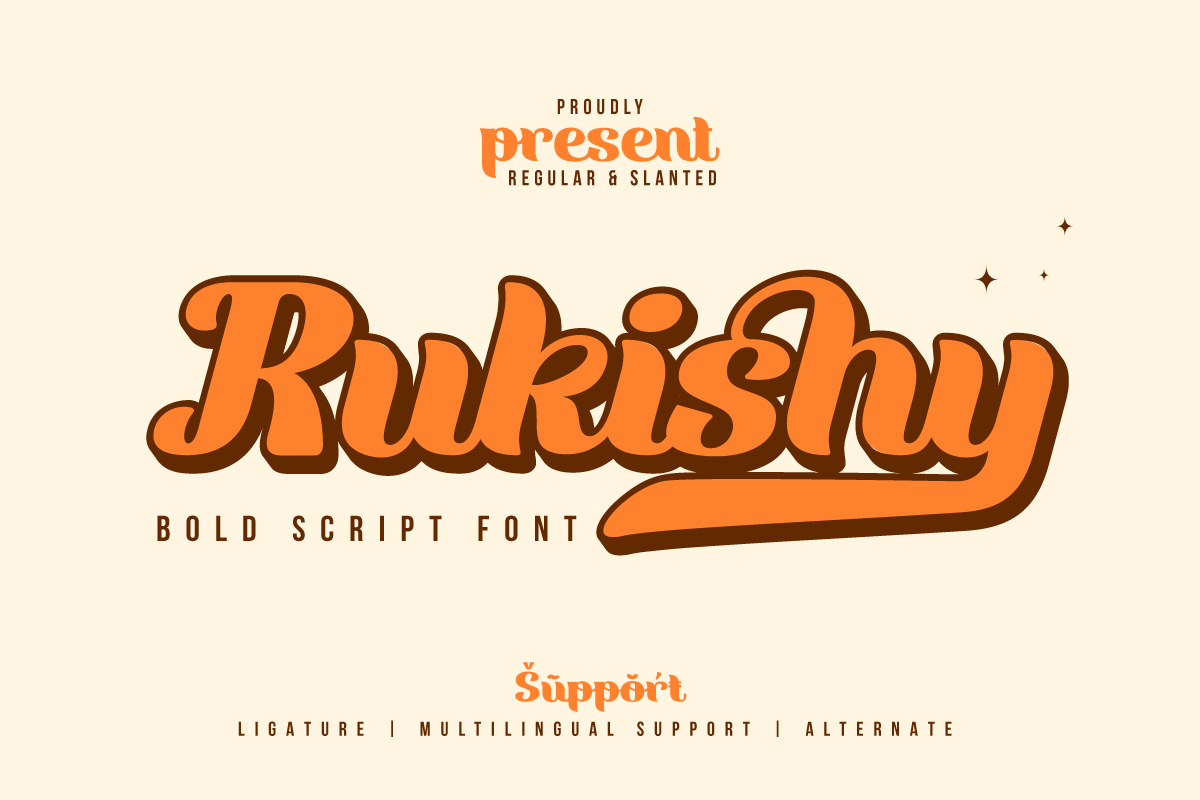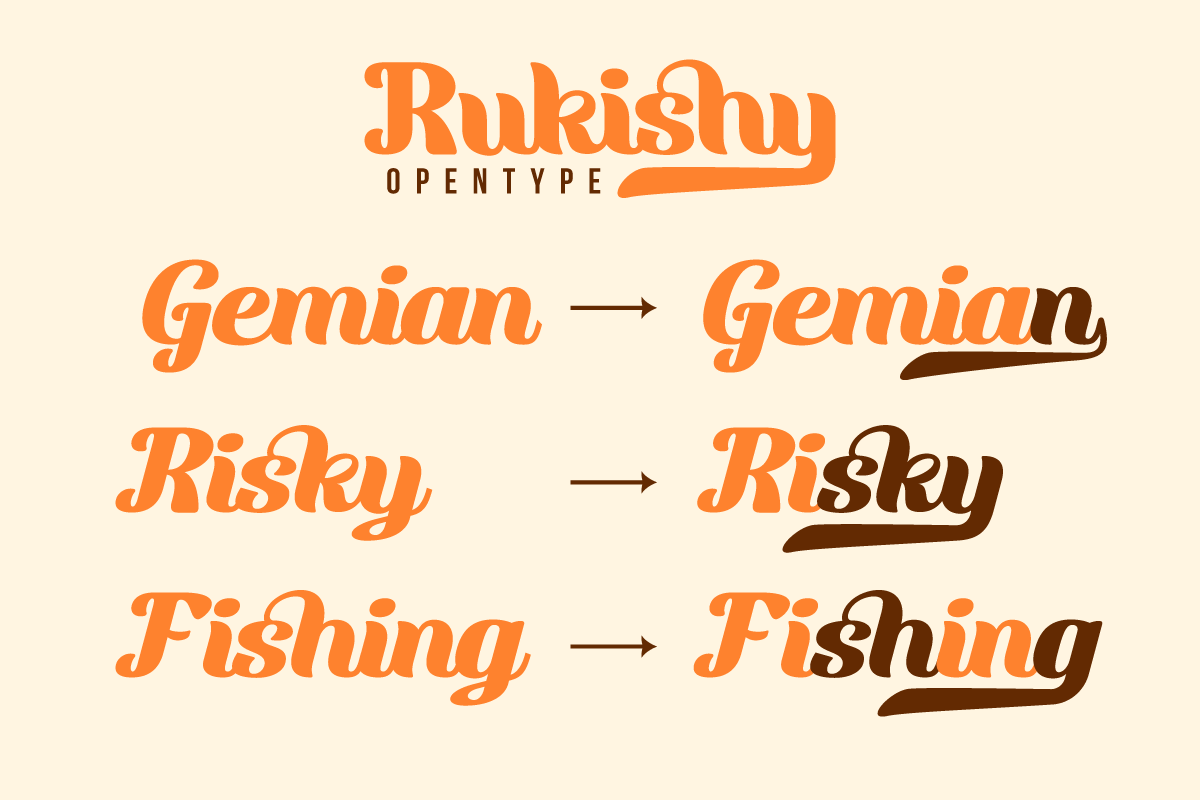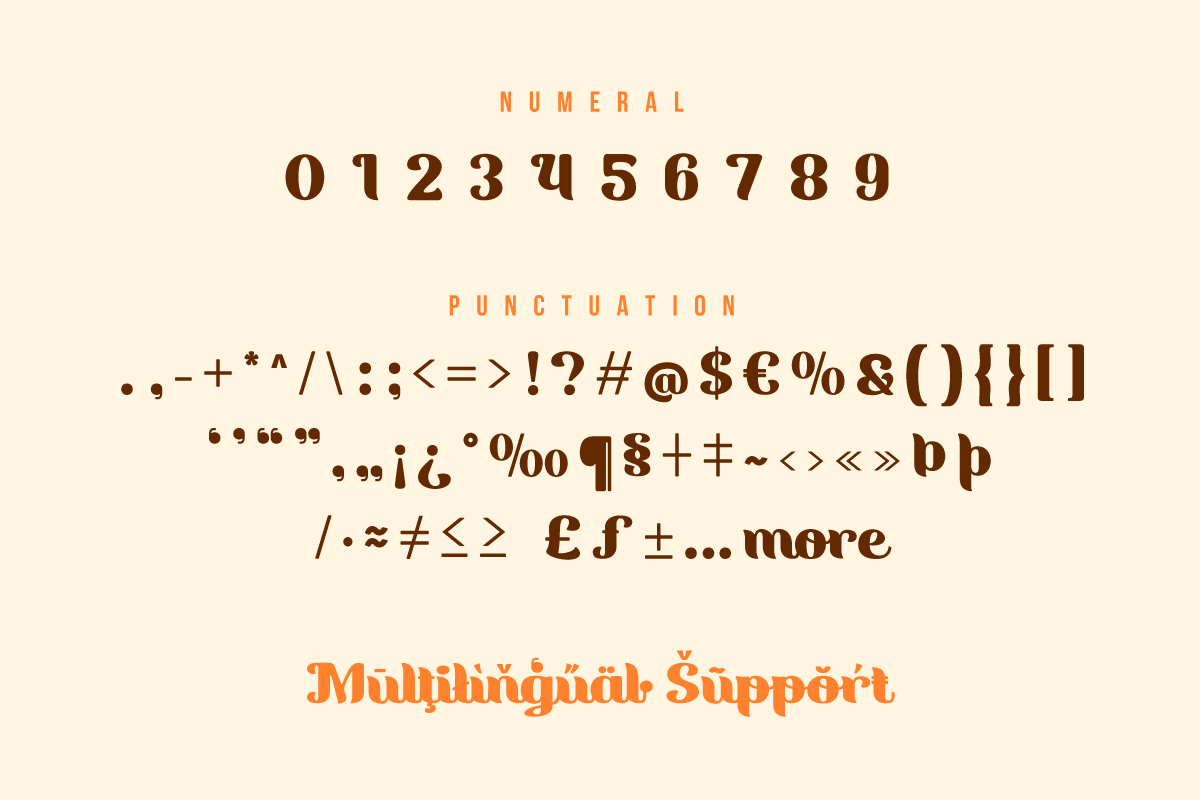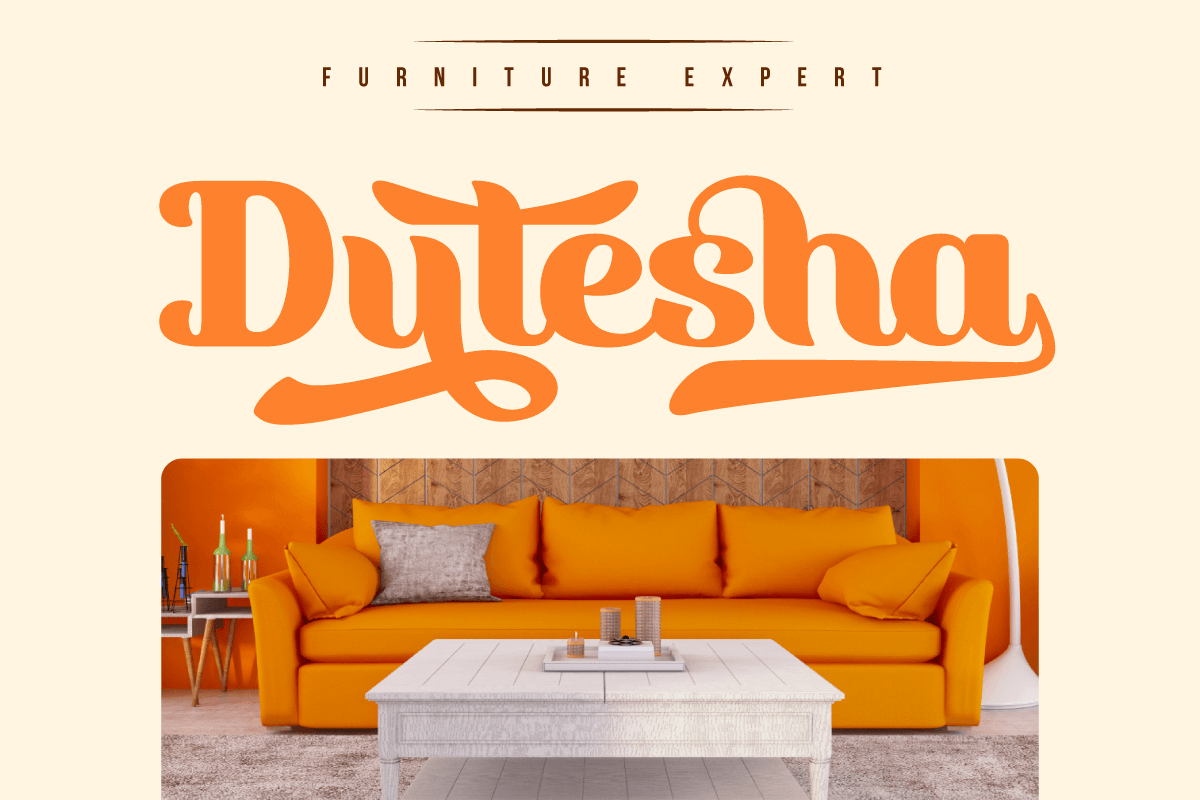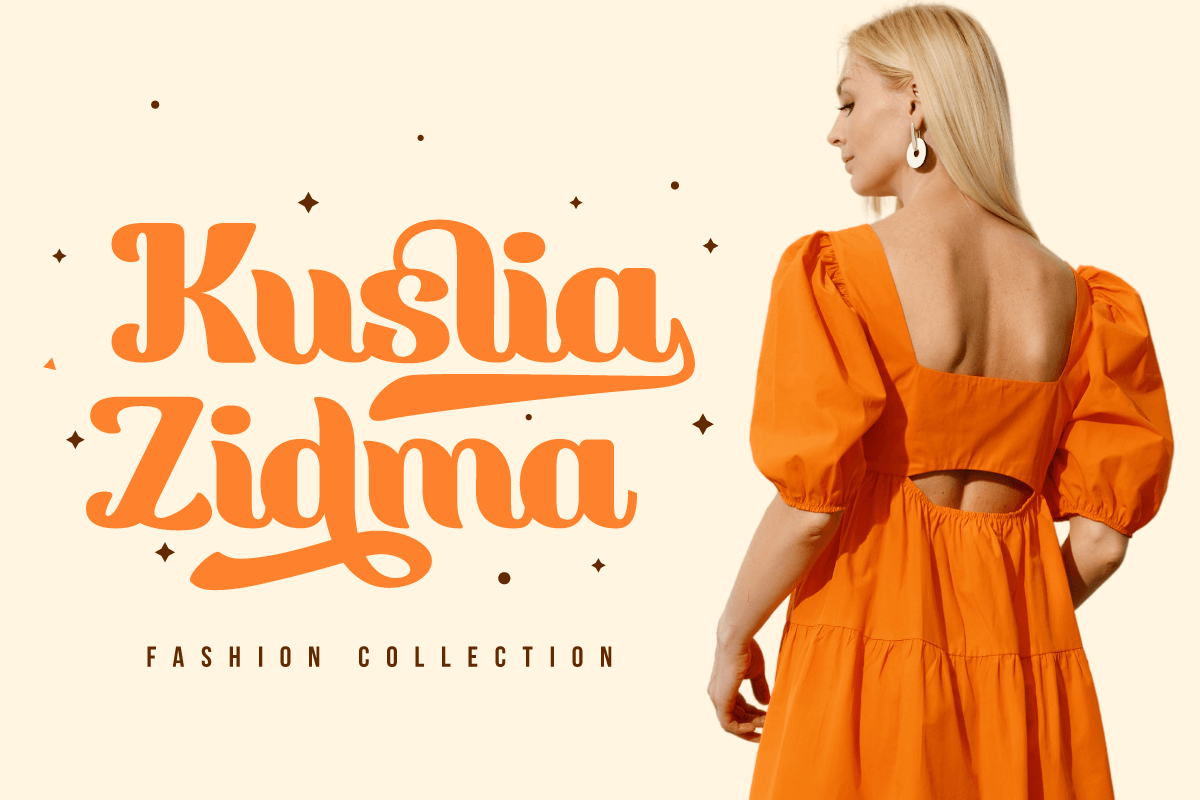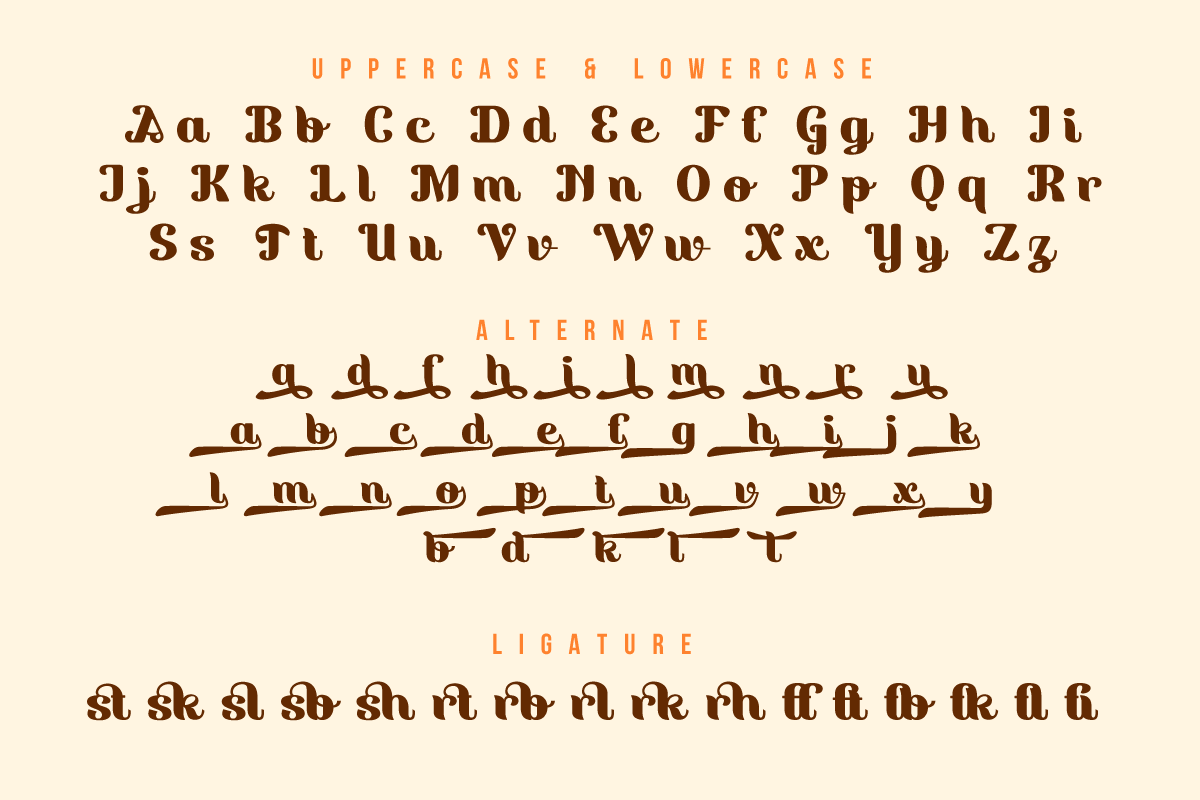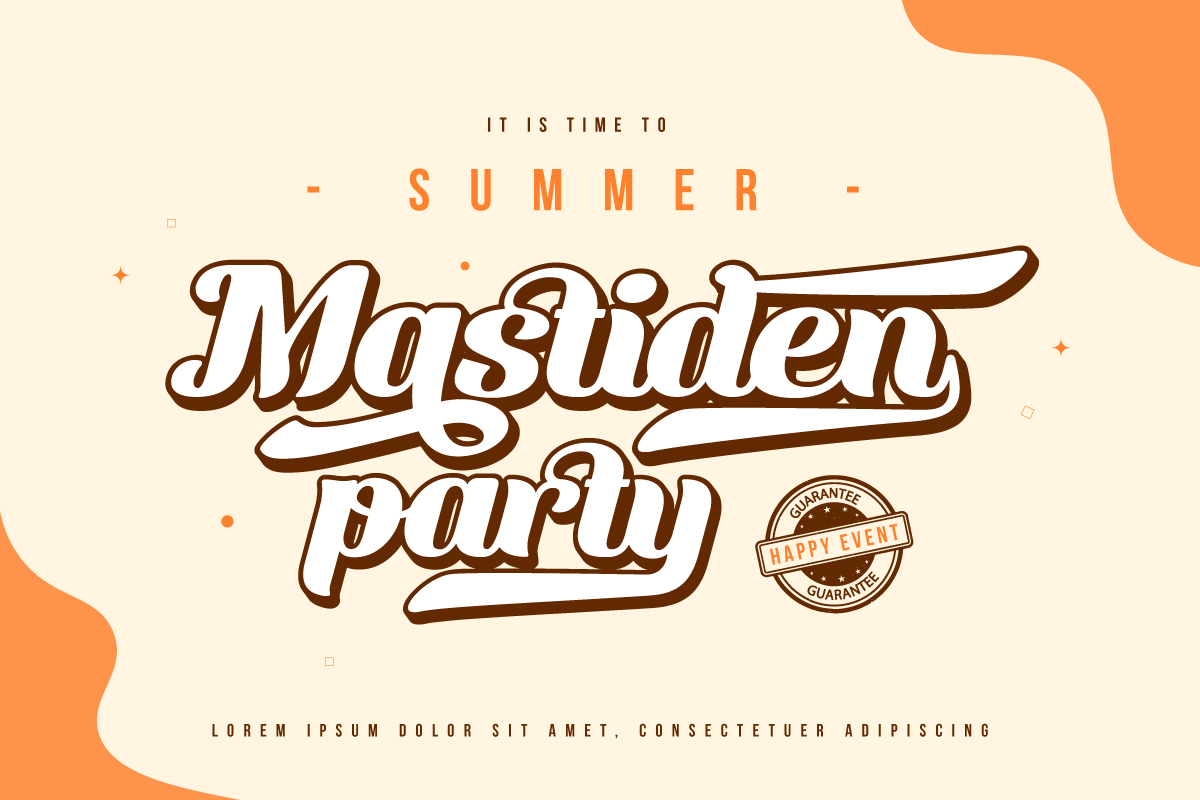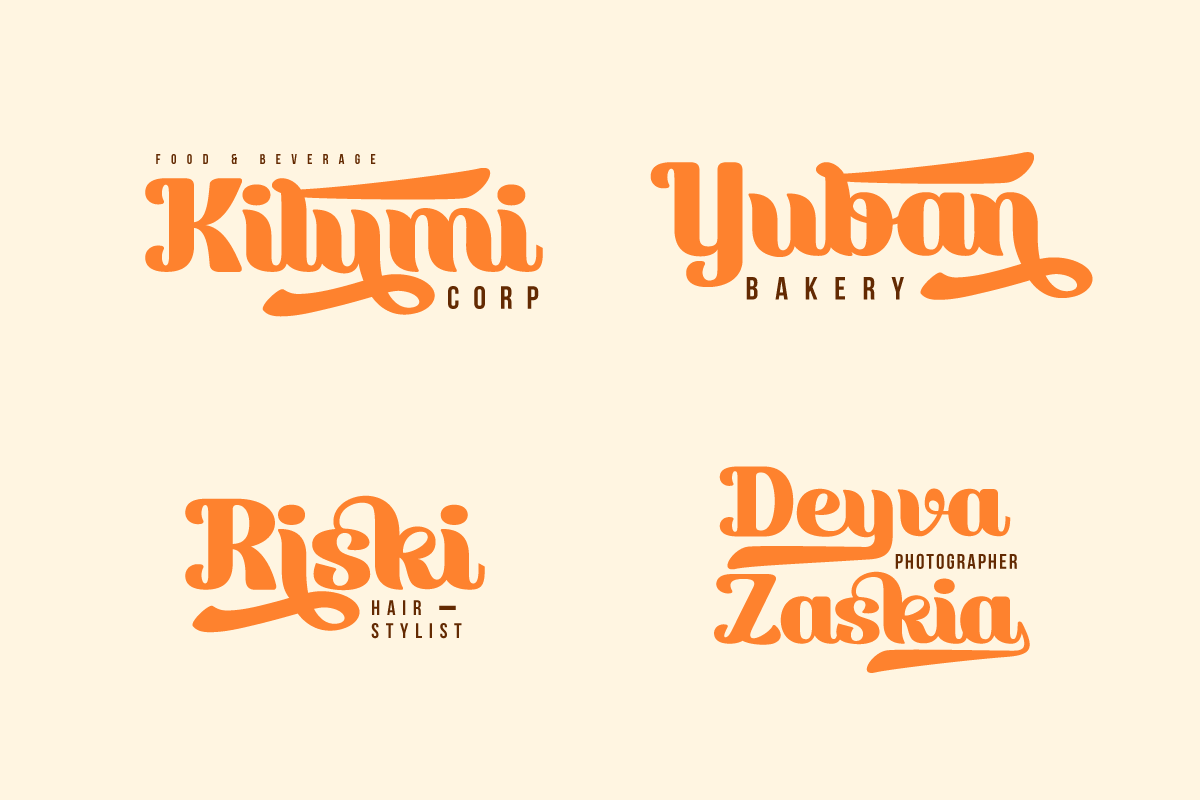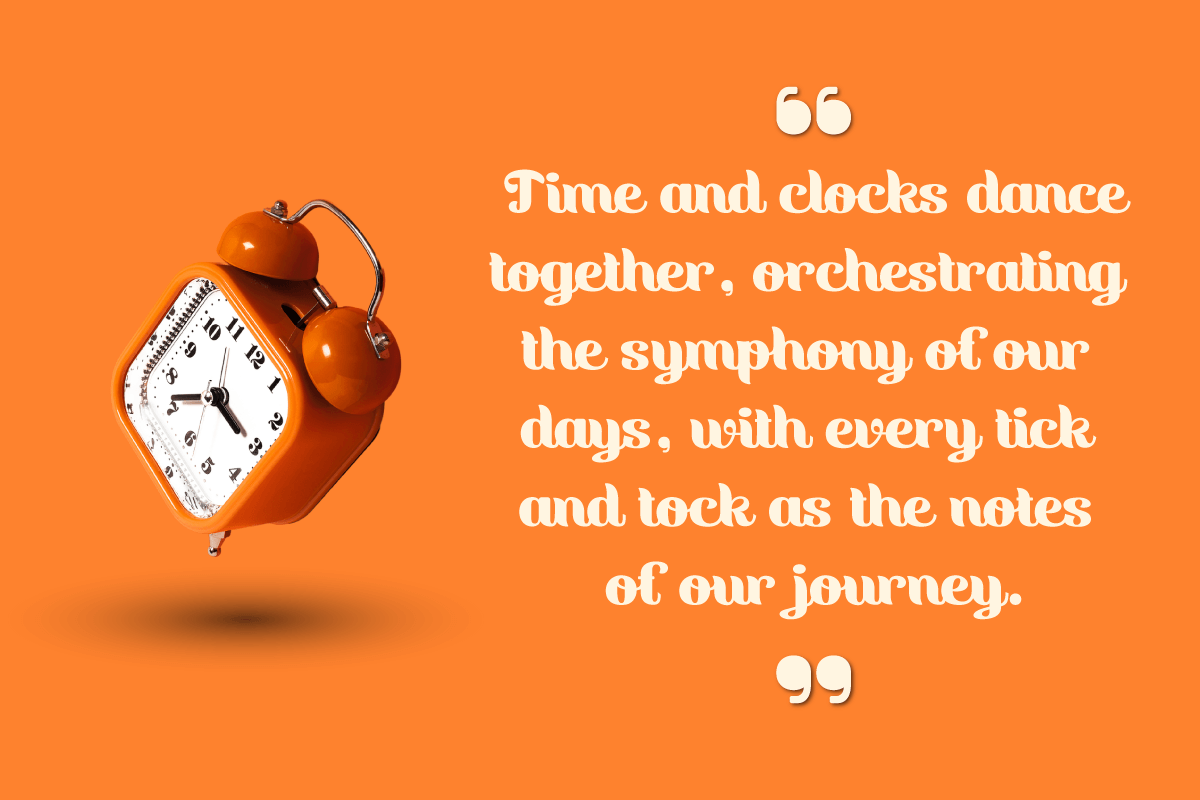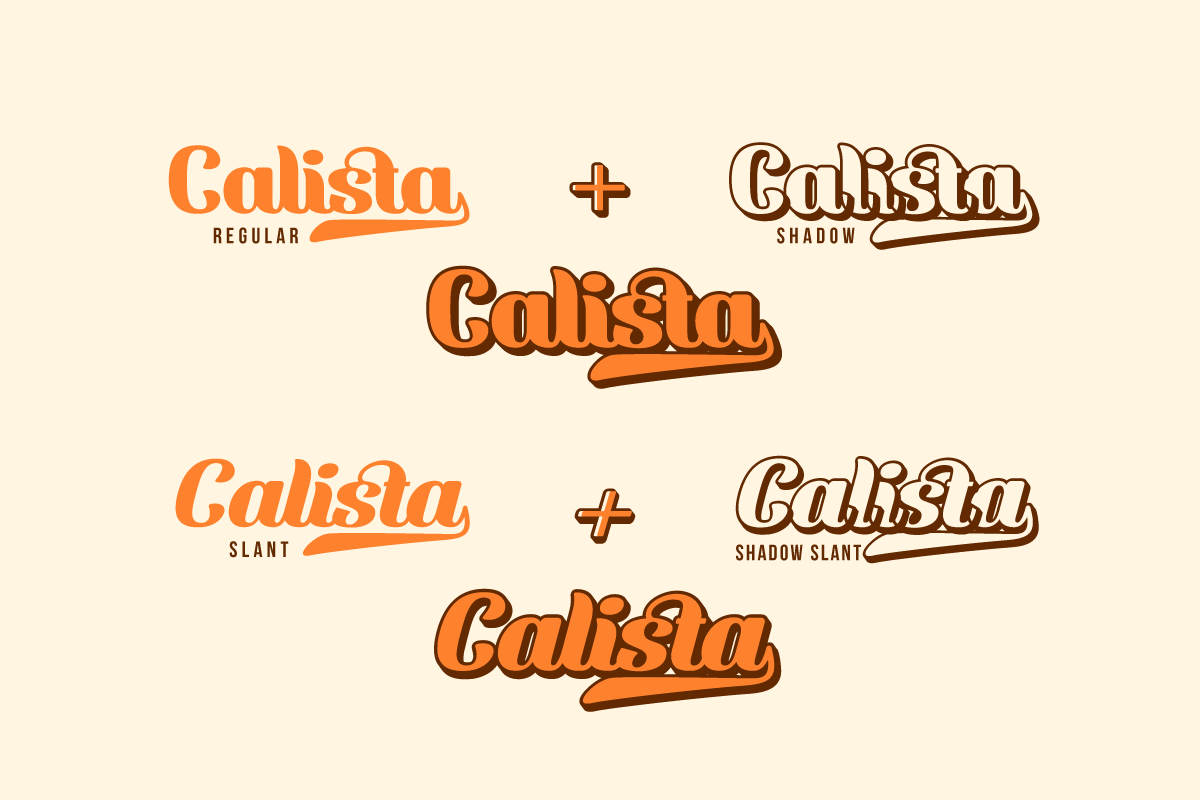
Rukishy - Script Font
Rukishy font is the most appropriate choice to enhance the visual appeal of your branding projects. With an attractive Script font style, this font presents an impressive design touch, creating an unforgettable charm.
What makes Rukishy so unique is its wide range of features. With a complete family that includes regular, shadow, slant, and shadow slant, you have everything you need to express your creativity optimally. Not only that but some ligatures and alternates add a unique touch to each character, helping you create truly original designs.
The ability to support multiple languages makes Rukishy a universal choice that allows you to reach a global audience. With its ease of use and flexibility, this font becomes a valuable asset in your design world.